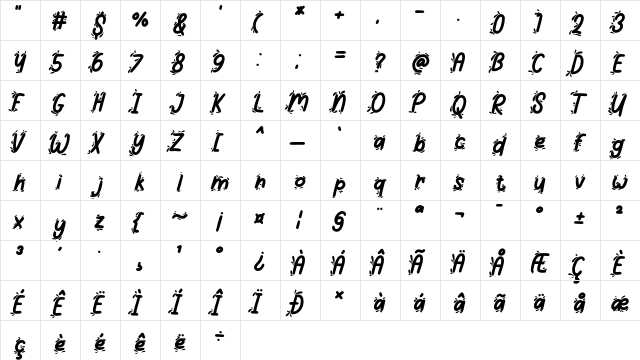
Summer Splash Display Regular
Design Context for Summer Splash Display Typeface
Summer Splash Display is built around its visual character rather than neutral utility — its distinctive forms are designed to make an impression at display sizes.
Font Pairing: Pair with a clean neutral sans-serif for body copy to let Summer Splash Display's character lead without overwhelming the composition.
Pro Tip: Use Summer Splash Display exclusively at display sizes — it was designed to be seen, not read at length. Let a neutral companion handle body copy.